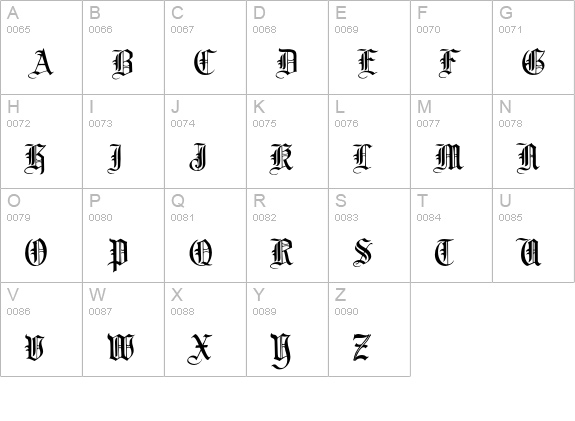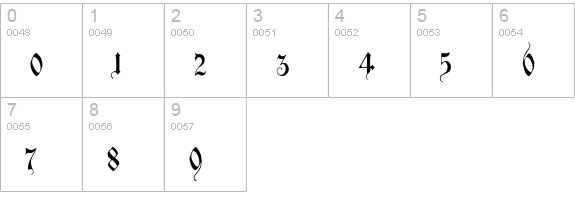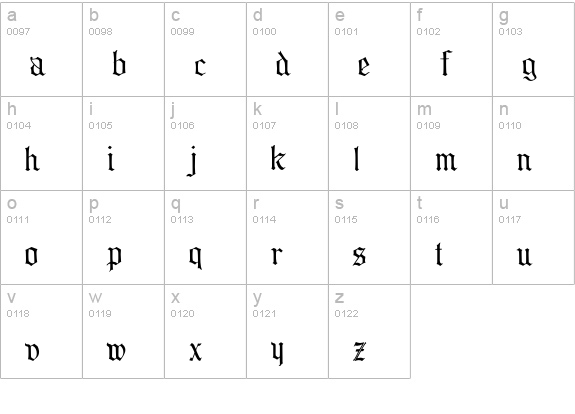
CollinsOldEnglish Font Details
CollinsOldEnglish font exudes a timeless charm with its elegant and intricate letterforms inspired by medieval calligraphy. This classic typeface brings a touch of old-world sophistication to any project, whether it's a formal invitation, vintage signage, or historical publication. The intricate detailing of CollinsOldEnglish font adds a sense of refinement and authenticity, making it a perfect choice for projects that require a touch of nostalgia and sophistication. Its ornate serifs and decorative elements capture the essence of traditional craftsmanship, while still maintaining a sense of modernity and versatility. What's even better is that CollinsOldEnglish font is free to download at FontsMarket.com, making it easily accessible for designers and creatives looking to add a touch of vintage flair to their work. Embrace the timeless beauty of CollinsOldEnglish font and elevate your designs with its historic charm and elegance.